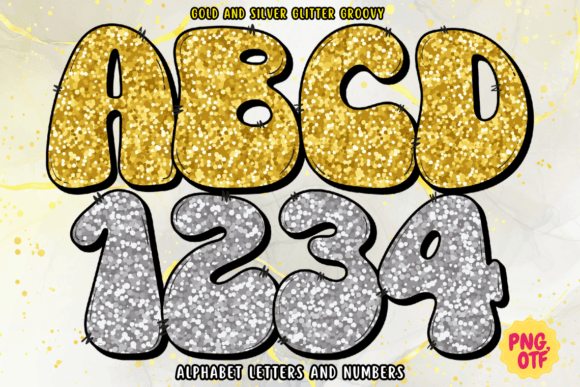
Unleash Your Inner Designer: Get Ready to Shine with Gold and Silver Glitter Groovy Font
Have you ever been stuck on a design project, searching for that perfect spark to bring your vision to life? It’s like trying to find the missing piece of a puzzle – until you stumble upon the perfect font. For me, that moment came when I discovered the Gold and Silver Glitter Groovy Font. Its dazzling combination of retro vibes and luxurious glitter instantly captured my attention, and I knew I had to share it with fellow designers.
Whether you’re creating event flyers, holiday cards, or decorative elements, this font is a game-changer. Its eye-catching sparkle adds a touch of elegance and fun to any design, making it the perfect choice for projects that call for celebration and flair. With its versatility and ability to elevate your creative projects, Gold and Silver Glitter Groovy Font is a valuable addition to any designer’s toolkit.
Gold and Silver Glitter Groovy Font Key Features
- Unique Characteristics: Glitter effects, metallic sheen, and a groovy vibe, perfect for creating eye-catching designs
- Font Style: Display font, ideal for headings, titles, and other prominent text elements
Designer Review: Gold and Silver Glitter Groovy Font
Overall, I think the Gold and Silver Glitter Groovy Font has some amazing qualities that make it stand out. ✨ The use of gold and silver glitter accents gives the font a fun, playful vibe that’s perfect for creative projects or any design that needs a touch of whimsy. The font’s bold, eye-catching style is sure to grab attention and add some personality to any layout.
Here are some things that I think work particularly well:
- ✨ The gold and silver glitter accents add a nice touch of luxury and sophistication.
- ✨ The font is highly customizable, allowing you to adjust the size, color, and style to fit your needs.
- ✨ The font is compatible with a wide range of platforms and devices, making it a great choice for multi-channel designs.
That being said, there are some limitations to consider:
- ⚠️ The font may be too flashy or distracting for some designs, especially those that require a more subtle approach.
- ⚠️ The font’s bold style may not be suitable for all typography-based designs, such as novels or essays.
Overall, I think the Gold and Silver Glitter Groovy Font is a great choice for designers who want to add a touch of fun and personality to their projects. While it may not be suitable for all designs, it’s a versatile font that’s sure to impress.